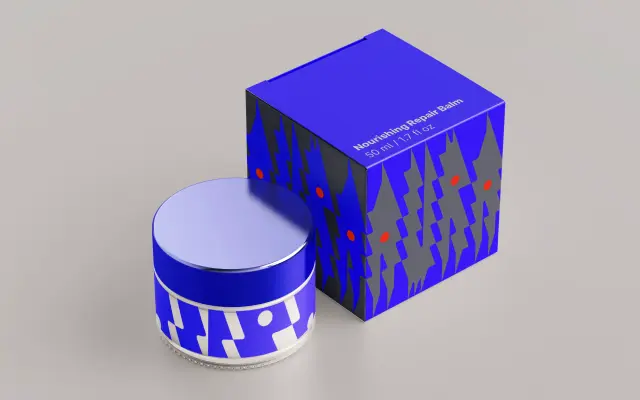
Serrucho Variable Font
In-House Intl · Alexander Wright, Michu Benaim Steiner
A variable display typeface with a single axis that morphs blocky, angular letterforms into spiky, electrified shapes, built for posters, merch and loud branding.
Designed by Alexander Wright and Michu Benaim Steiner at In-House International, with type development by Rodrigo Fuenzalida at FragType, Serrucho runs a single variable axis across eight positions from flat and blocky to violently serrated. The name comes from the Spanish word for handsaw, and the aesthetic draws on post-punk flyers, hardcore posters and protest graphics. It suits applications where strong contrast and raw energy matter more than legibility at small sizes.
A variable display typeface with a single axis controlling the degree of serration across eight weights, from blocky and authoritative to spiked and frenetic. Clearly display category with no body-text application intended.